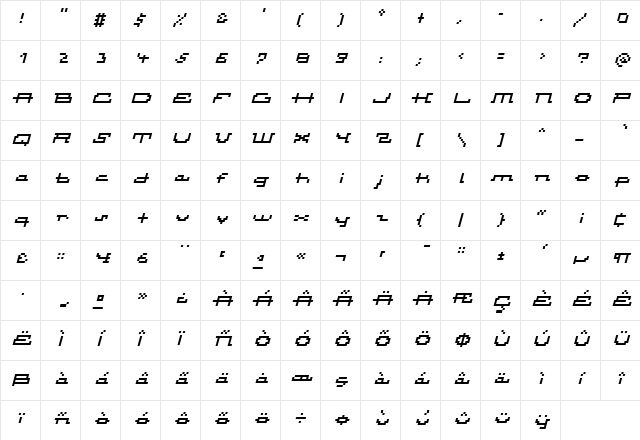
Atomic InlineItalic
Design Context for Atomic Typeface
Atomic brings ornamental detail and strong personality to headlines and identities, where visual impact matters more than quiet functionality. The slanted form adds forward momentum and visual energy.
Font Pairing: Pair with a clean neutral sans-serif for body copy to let Atomic's character lead without overwhelming the composition.
Pro Tip: Use Atomic exclusively at display sizes — it was designed to be seen, not read at length. Let a neutral companion handle body copy.